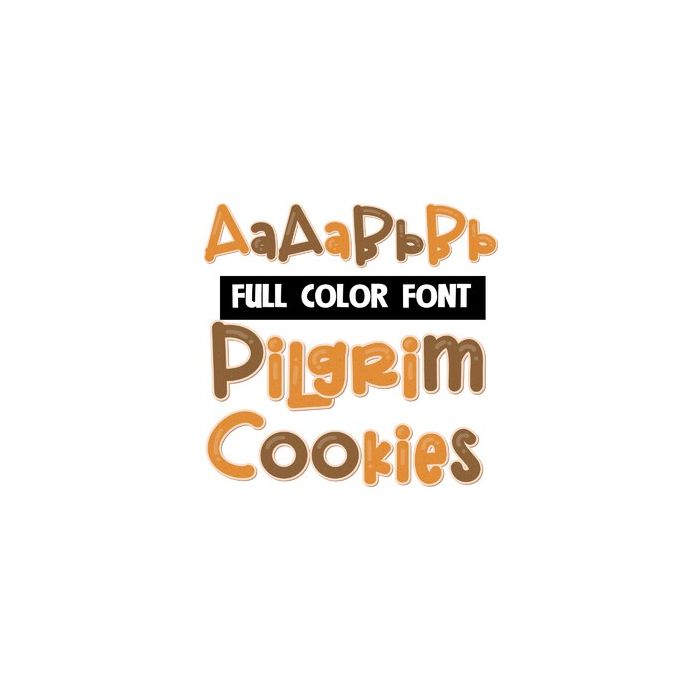
This full-color font features sugar cookies with a Thanksgiving color palette. There is a an alt version w/ secondary colors available through your system's or Silhouette's glyph map.